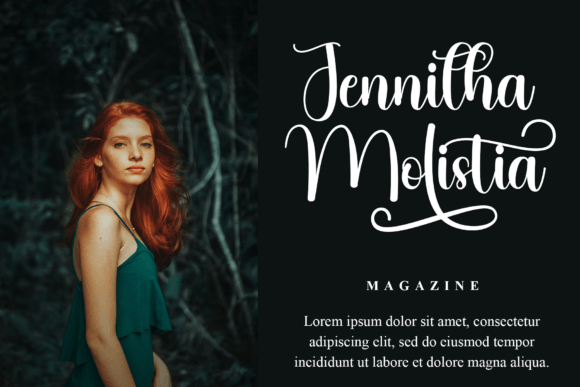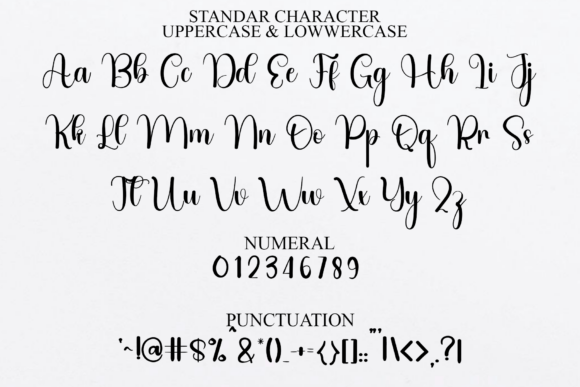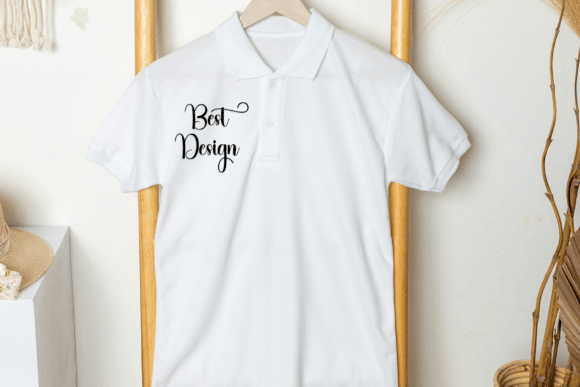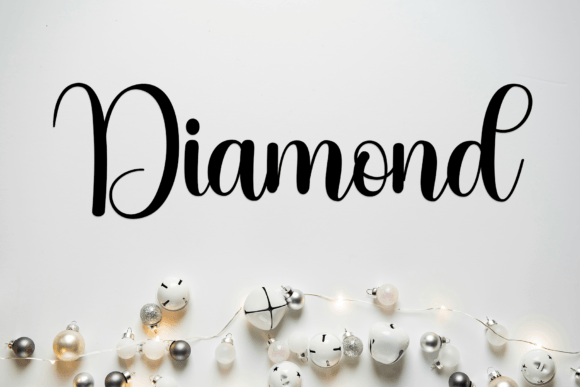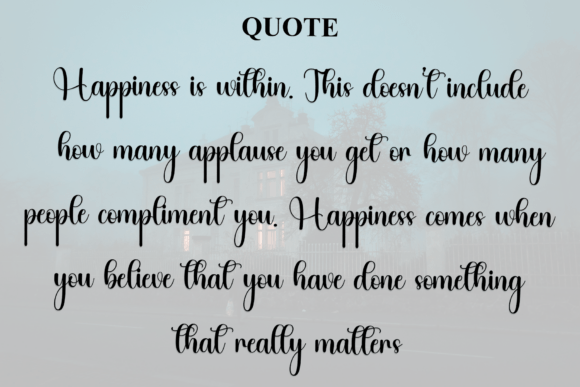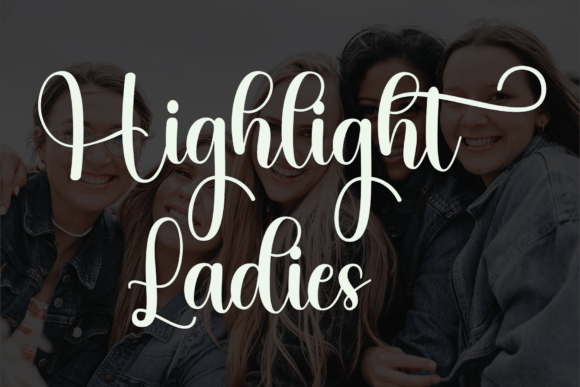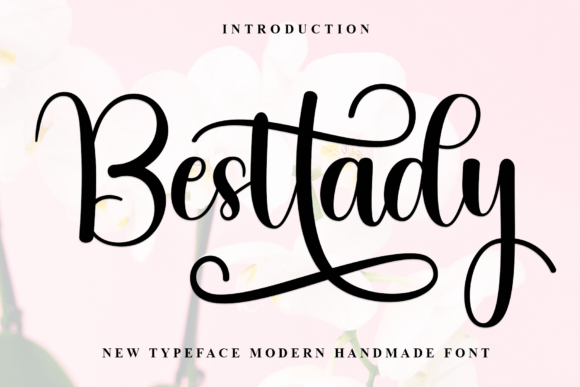
The Bestlady Font: Elevating Your Designs with Elegance and Charm
As a designer, I’ve had my fair share of moments where finding the perfect font felt like searching for a needle in a haystack. I recall working on a wedding invitation project, determined to create something that would make the couple’s special day even more memorable. After hours of scrolling through font libraries, I stumbled upon the Bestlady font. Its fluid strokes and natural flow instantly captivated me, and I knew I had found the one. In this article, I’ll share my experience with the Bestlady font, its unique features, and how to make the most of it in your designs.
An Honest Review of Bestlady
• ✨ Elegant and charming aesthetic that adds a touch of sophistication to any design
• ✅ Fluid strokes and natural flow create a captivating visual experience
• 💫 Perfect for adding a personal touch to invitations, branding, or social media
• 🎨 Brings a sense of warmth and creativity to any design
While Bestlady is an exceptional font, there are a few things to keep in mind:
• ⚠️ Limited availability of stylistic alternates, which might restrict design variations
• 🤔 May not be the best choice for body text due to its elegant, yet slightly ornate nature
4. Experiment with OpenType features, such as ligatures and stylistic alternates, to add visual interest
5. Use the font’s built-in features, such as ligatures, to add a touch of elegance
The Story Behind Bestlady
The Bestlady font was designed with the intention of capturing the essence of elegance and charm. Its creator aimed to craft a font that would be both sophisticated and approachable, making it perfect for a wide range of design applications. The font’s fluid strokes and natural flow were inspired by traditional calligraphy, with a modern twist to make it suitable for contemporary designs.
Q: What makes Bestlady suitable for invitations and branding?
A: Bestlady’s elegant and charming aesthetic makes it perfect for adding a personal touch to invitations, branding, or social media. Its fluid strokes and natural flow create a captivating visual experience that draws the reader in.
Q: Can I use Bestlady for body text?
A: While Bestlady is an exceptional font, it may not be the best choice for body text due to its elegant, yet slightly ornate nature. It’s better suited for headlines, titles, or short paragraphs where you want to make a statement.
Q: Does Bestlady support OpenType features?
A: Yes, Bestlady supports OpenType features, such as ligatures and stylistic alternates. These features allow you to add visual interest and create unique design variations.